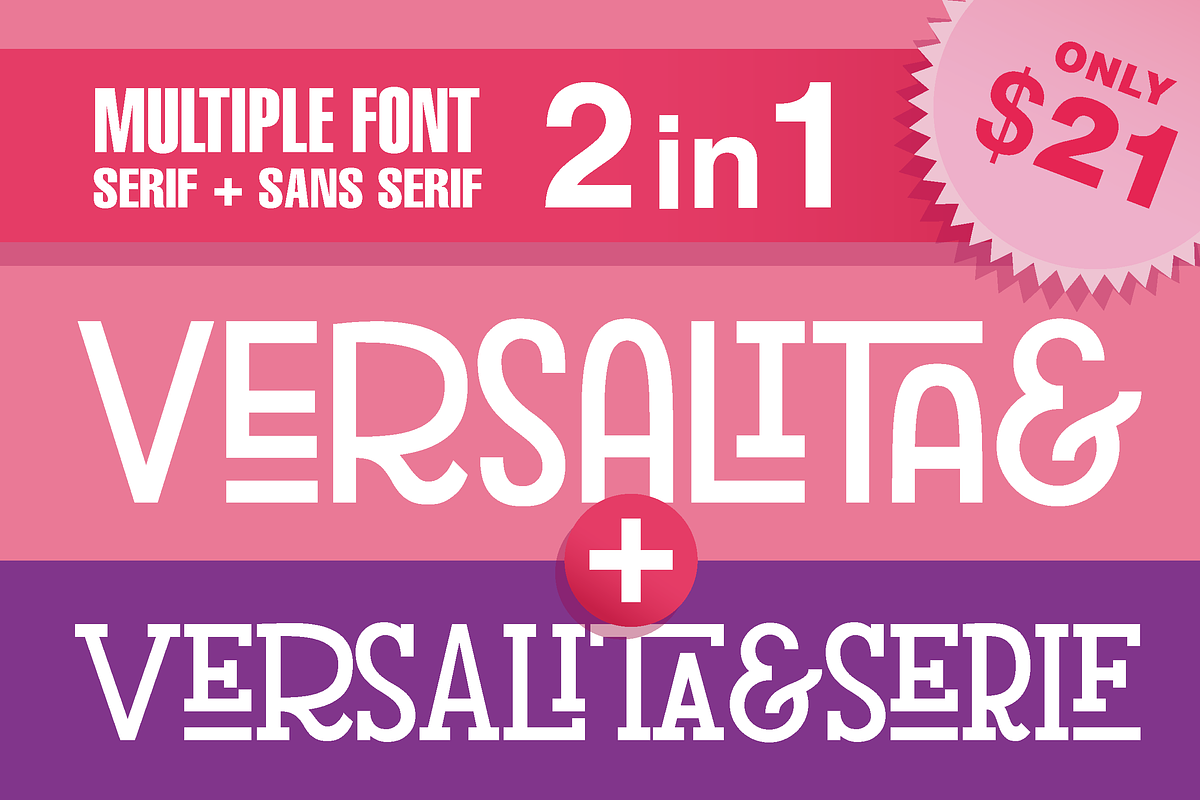
2in1 Versalita& + Versalita&Serif Free Download is a dynamic font bundle that combines the sleek elegance of a sans-serif with the timeless charm of a serif. Perfect for modern branding, editorial layouts, websites, and creative projects, this collection offers versatility and sophistication in one package.
With two distinct styles—Versalita& for clean, modern looks and Versalita&Serif for a more classic, refined appearance—this bundle is ideal for creating cohesive designs that maintain style and readability. Whether you're crafting a chic logo, designing a professional business card, or building a modern website, these fonts work beautifully together or independently. Try them in your next project to see their power—then upgrade to a commercial license when you're ready to go live.